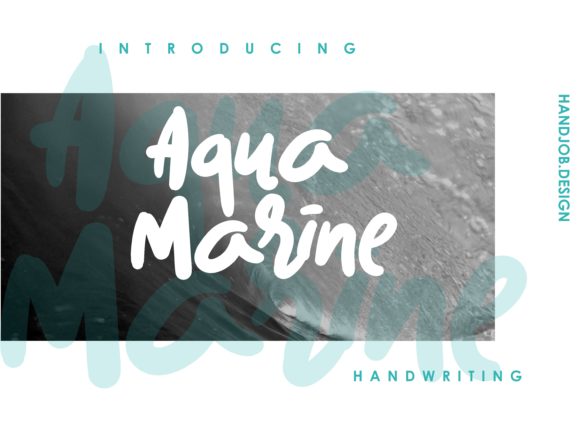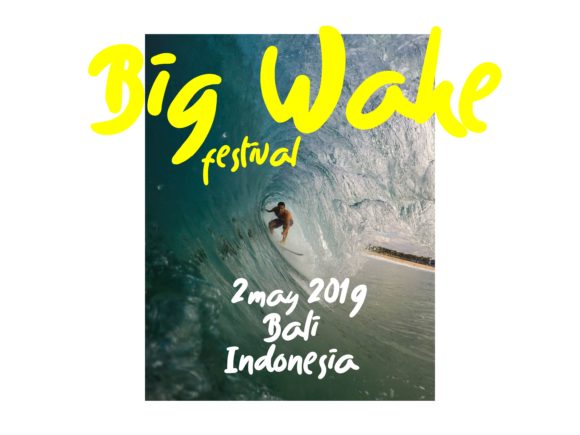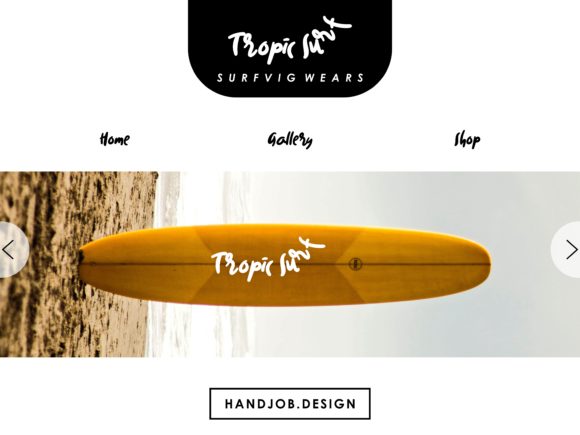
Aqua Marine Font
About Aqua Marine Font
The Aqua Marine is a bold script font. It was inspired by waves and is perfect for posters, magazine layouts, logos, web layouts, quotes, and every other design which needs a playful touch.